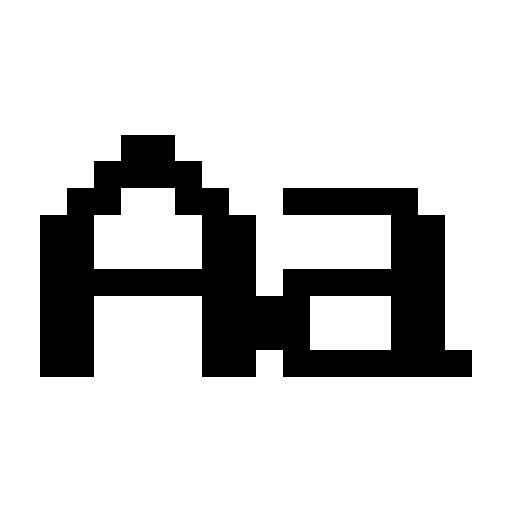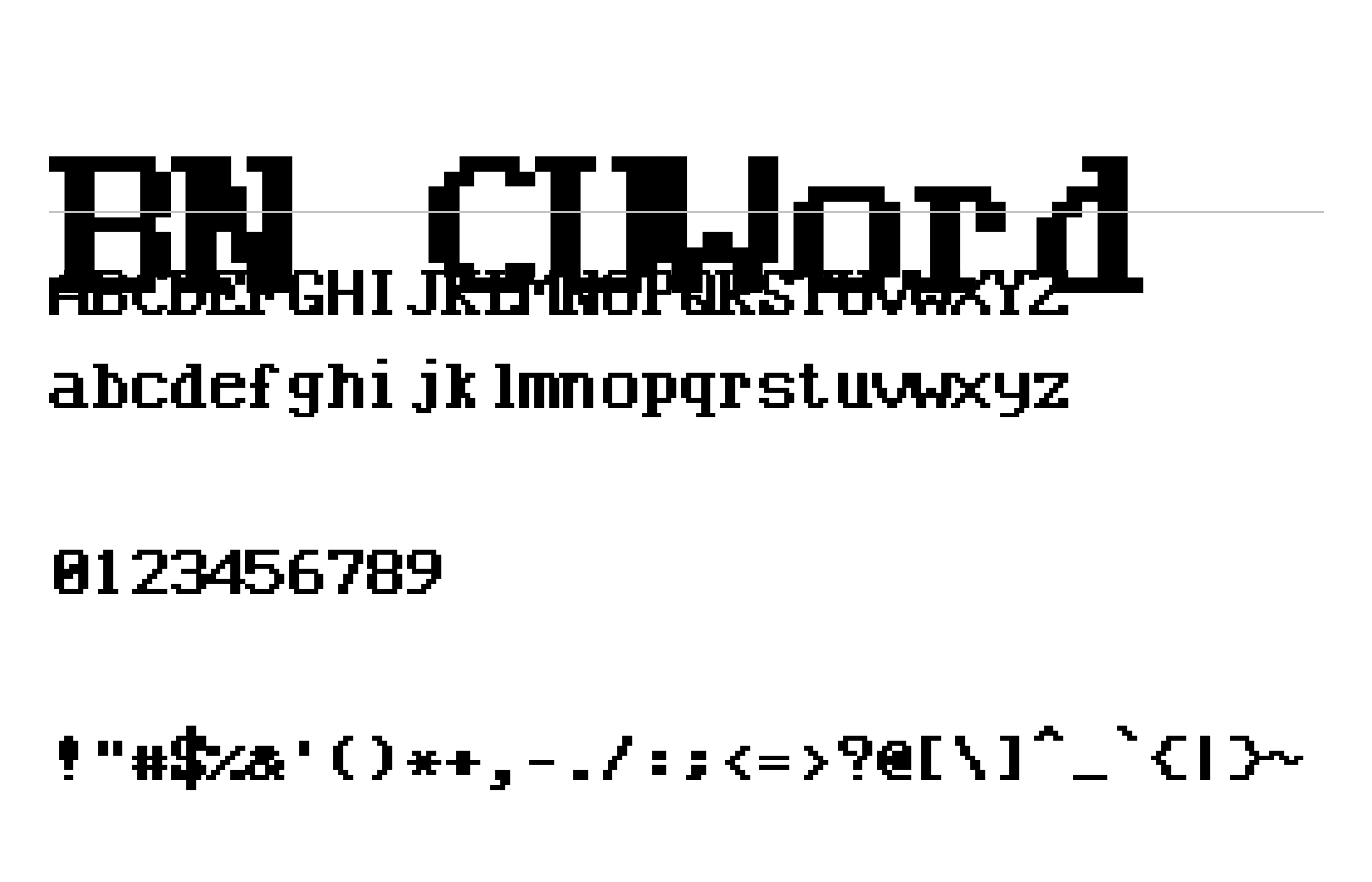
BN CUWord is a pixelated monospaced font with a strong retro, digital feel reminiscent of early computer or arcade text. Its bold, blocky letterforms and consistent stroke weight create a clean, technical look ideal for gaming, coding, or tech-themed designs that need a nostalgic yet functional style. This font works best in headlines, logos, or user interfaces where clarity and a vintage digital vibe are desired.